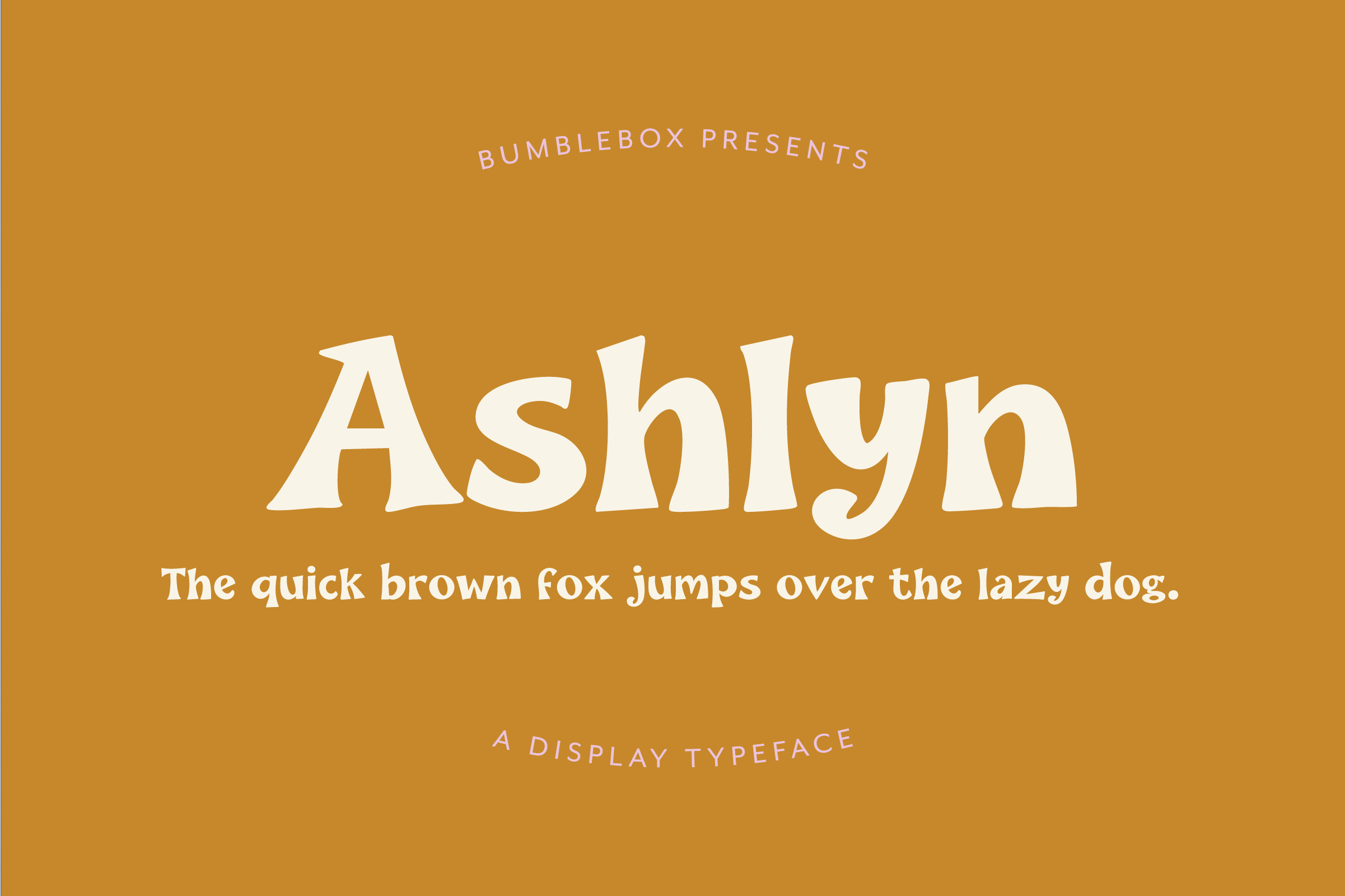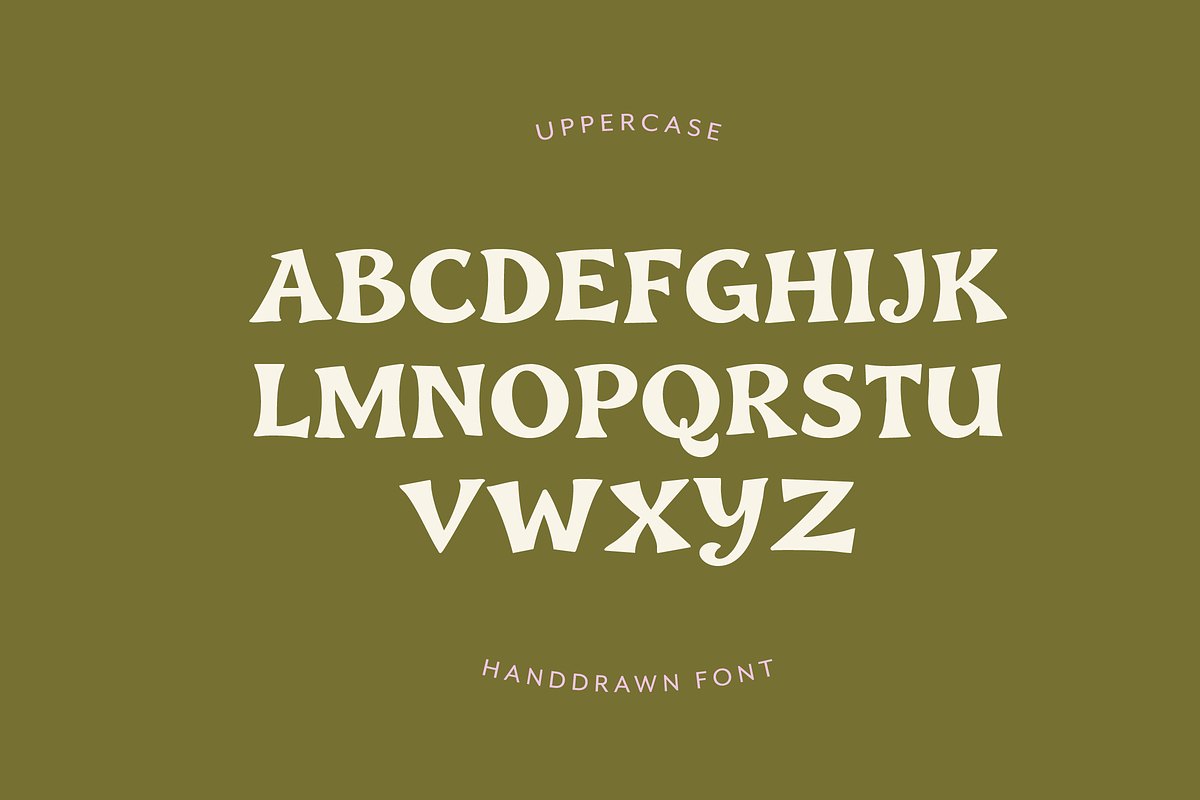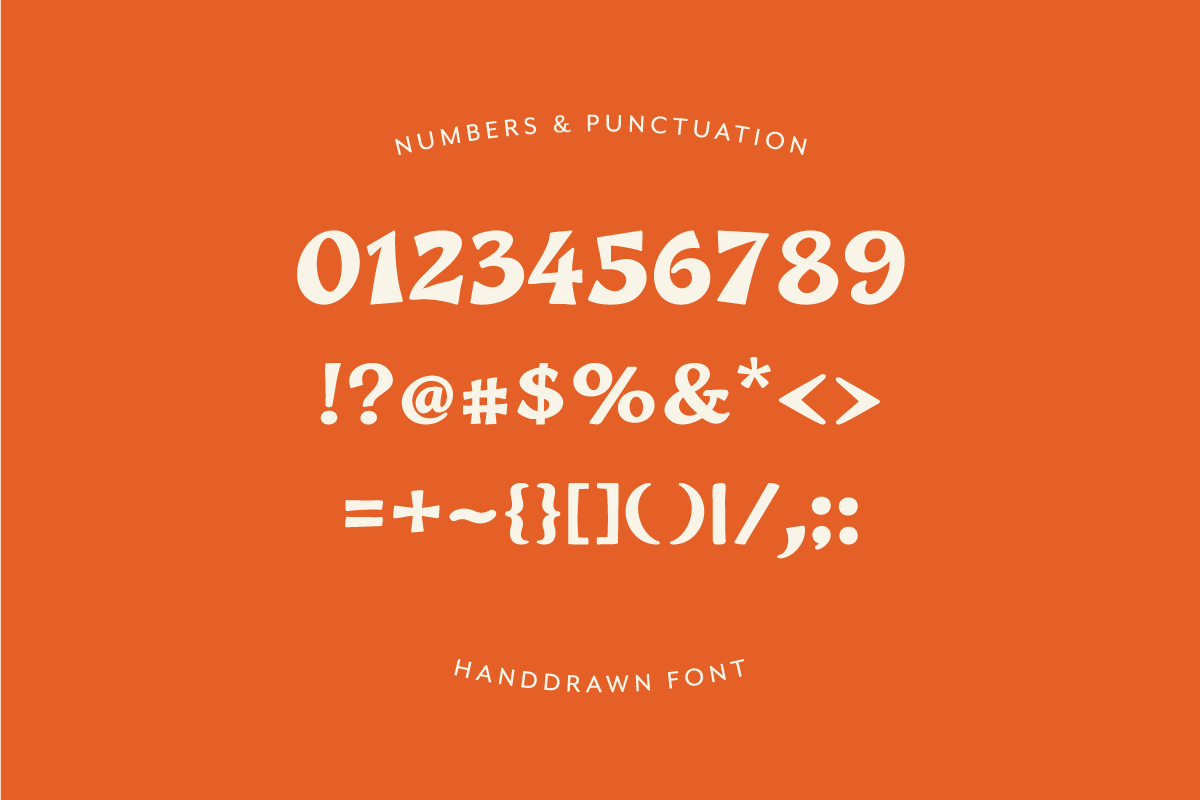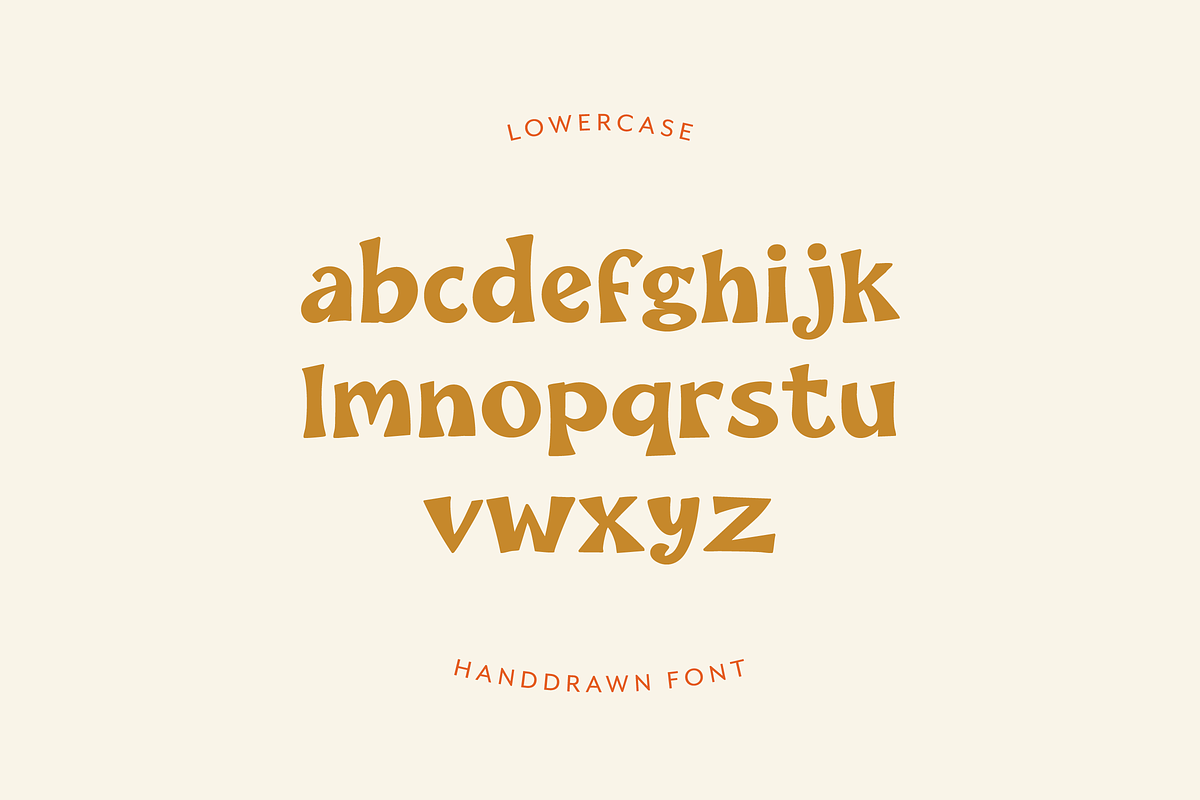
Ashlyn – Cozy Handwritten Font
Ashlyn is a warm and playful display typeface with soft curves, flared terminals, and a charming handcrafted feel. Designed to bring personality to headlines and creative projects, Ashlyn balances storybook character with strong readability.
The letterforms feature gentle movement and distinctive shapes that give the font a friendly, slightly nostalgic tone. Its bold presence makes it perfect for designs that want to feel welcoming, whimsical, and full of personality.
Ashlyn shines in larger sizes where its unique details and flowing forms can really stand out.
Perfect for
branding
packaging and labels
bakery and café designs
book covers
posters and headlines
social media graphics
craft and handmade product designs
children's projects and storybook titles
Uppercase & lowercase letters
Numbers and punctuation
Carefully balanced spacing for smooth word rhythm
Designed for display and headline use
Ashlyn adds warmth and character to any design while remaining clear, expressive, and easy to read.